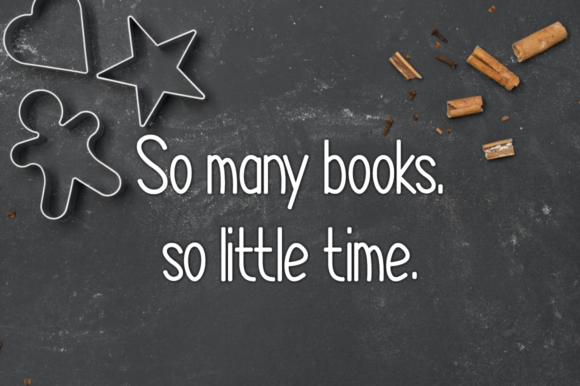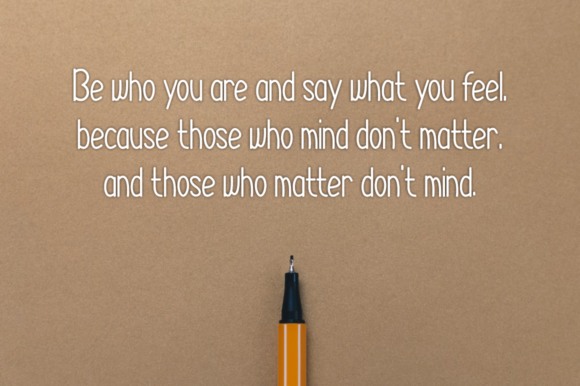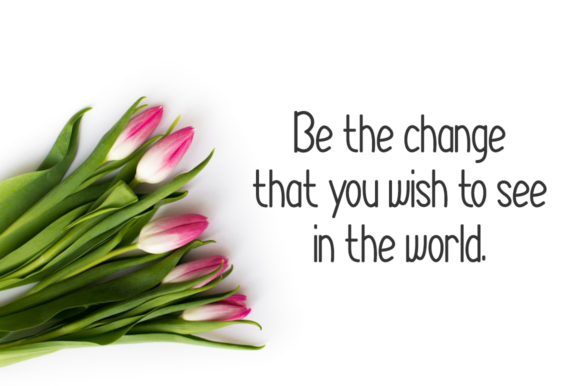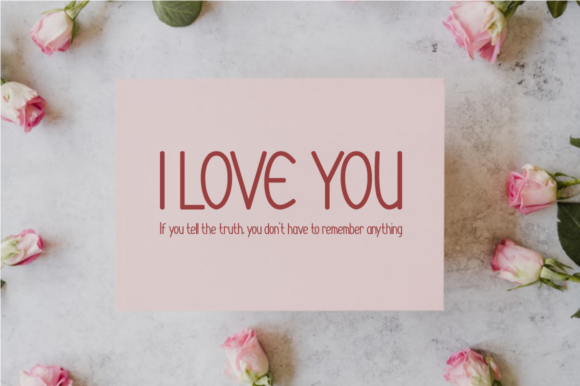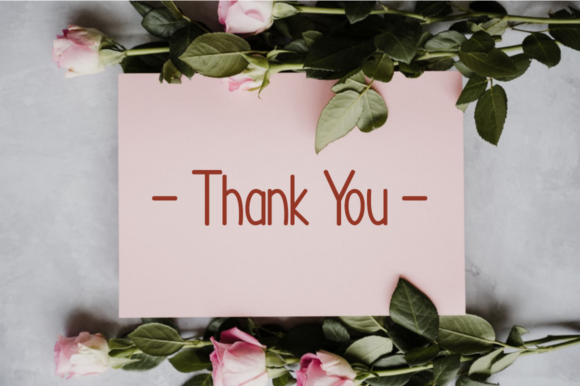
Syariana Font
Introducing “Syariana,” a sweet and friendly handwritten font that exudes warmth and charm. Its natural and unique style makes it a perfect fit for a wide variety of design projects, adding a touch of handcrafted sweetness to every creation. Prepare to be captivated by its versatility and watch as it becomes the perfect companion for all your imaginative ideas. The only limit is your imagination!
With “Syariana,” you have a font that feels as warm and inviting as its name suggests. Its handwritten charm brings a sense of authenticity to your designs, creating a delightful visual experience. Whether you’re working on wedding invitations, branding materials, or social media graphics, this font adds an air of friendliness that leaves a lasting impression.
Embrace the natural beauty of “Syariana,” as it effortlessly complements different design styles and themes. Its unique and friendly appeal allows it to adapt to any project, making it the go-to font for all your creative endeavors.
Unleash your creativity and watch how “Syariana” enhances your designs with its sweet and charming touch. Whether you’re crafting playful posters, creating heartwarming quotes, or designing captivating logos, this font will bring a sense of beauty and authenticity that captivates your audience.
So, immerse yourself in the sweetness of “Syariana” and let it become your creative ally. Allow its natural and unique style to inspire your designs, turning them into stunning works of art. Whether you’re a seasoned designer or a passionate enthusiast, “Syariana” empowers you to create visuals that stand out and make a statement. Let “Syariana” be the key to unlocking the warmth and charm in your designs, and watch as it takes your projects to new heights of creativity and delight!